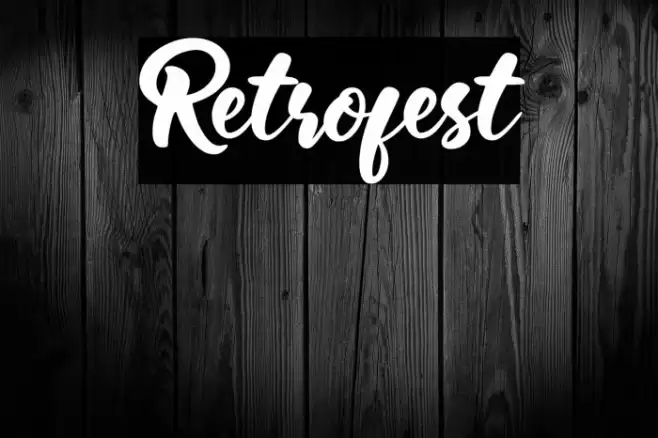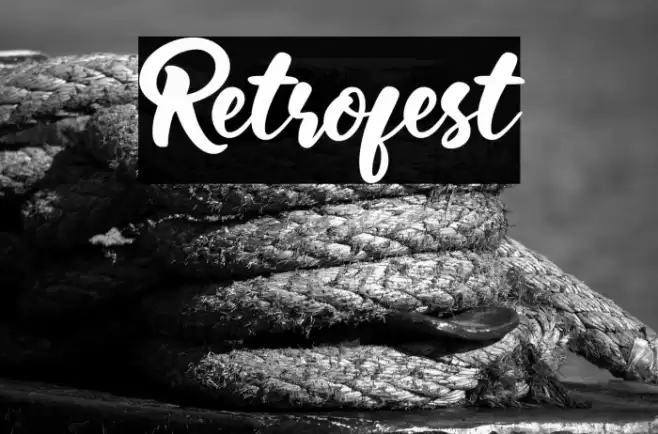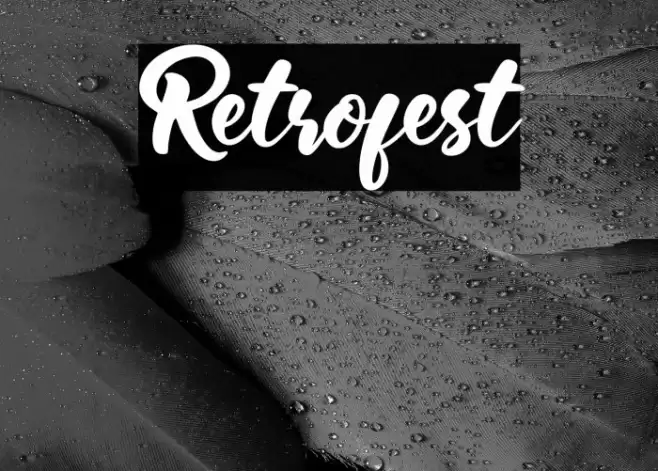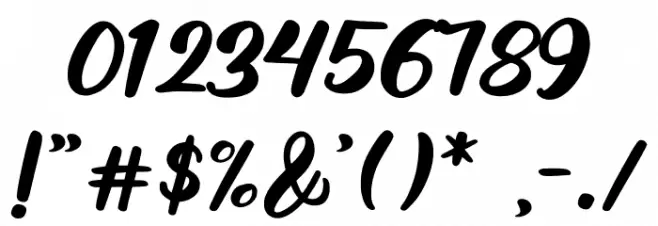
Retrofest Font
Retrofest Description
This font features a bold, flowing script style that exudes a sense of retro charm and elegance. The characters are connected, creating a seamless and fluid appearance that is both dynamic and visually appealing. The uppercase letters are slightly more ornate, with exaggerated curves and loops, while the lowercase letters maintain a consistent rhythm and balance. The numerals are bold and clear, matching the overall style of the letters. Special characters are designed with the same attention to detail, ensuring a cohesive look across all glyphs. This font is perfect for projects that require a touch of vintage flair combined with modern readability.
A bold, flowing script font with retro charm and elegance from Uncategorized fonts.
- Proposed Projects: Ideal for branding, invitations, posters, and any project needing a vintage yet modern touch.
- Overall Style: Retro, Elegant
- Use Case: Logos, Headlines, Invitations